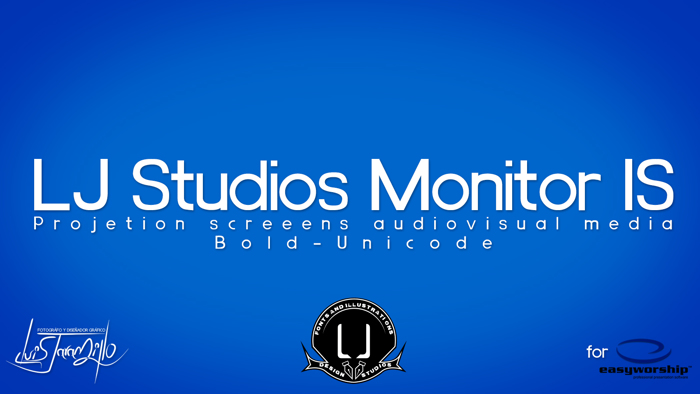
LJ Studios Monitor Large IS Font
MAYUS Style
MAYUS/Minus Style
Its main goal is to be implemented in digital visual media (Multimedia) large to represent texts at a great distance,
Su principal objetivo es ser implementada en medios visuales digitales (Multimedia) de gran tamaño, para representar textos a gran distancia,